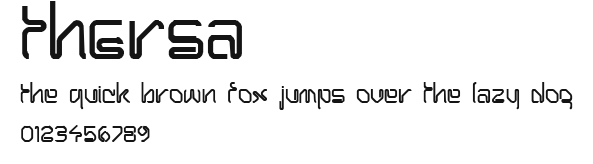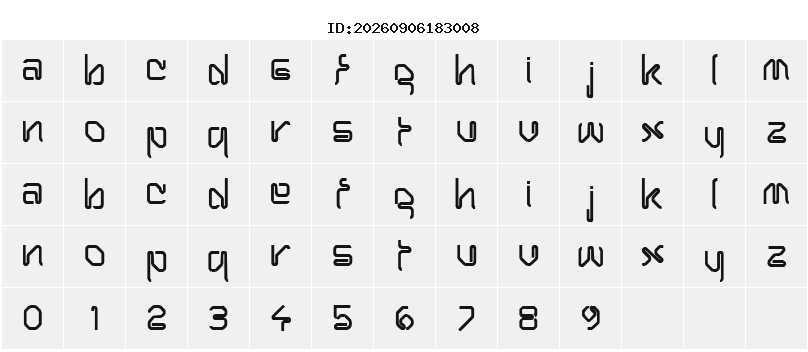
THERSA Preview
• Font Name: THERSA
• Full Font Name: THERSA Regular
About THERSA.ttf
THERSA.ttf is a modern, elegant sans-serif font designed for ultimate readability and visual harmony. Perfect for branding, headlines, web design, and print materials.